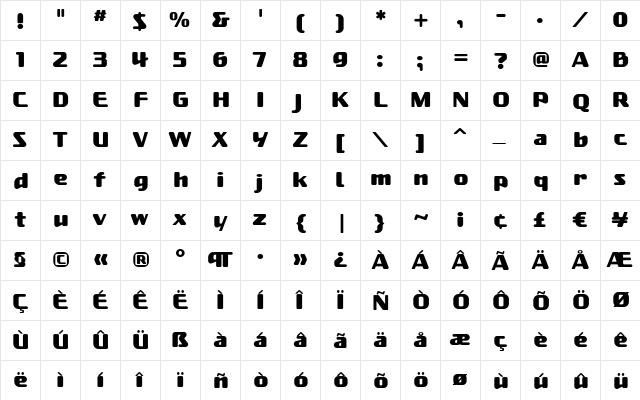
Basala Regular Regular
Design Context for Basala Regular Typeface
Basala Regular is a composed and adaptable typeface that performs quietly and consistently across a wide range of design contexts.
Pro Tip: Pair Basala Regular with a font of contrasting weight or personality to build a more expressive typographic hierarchy.